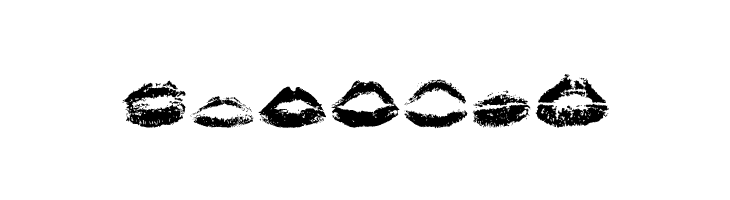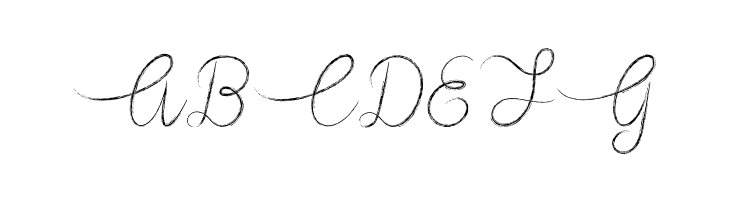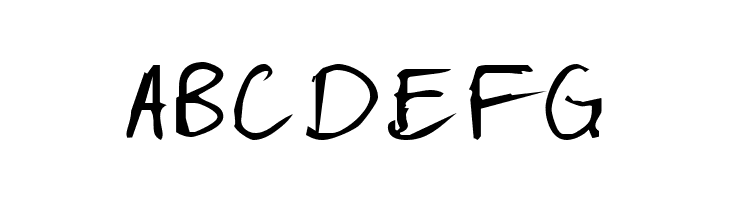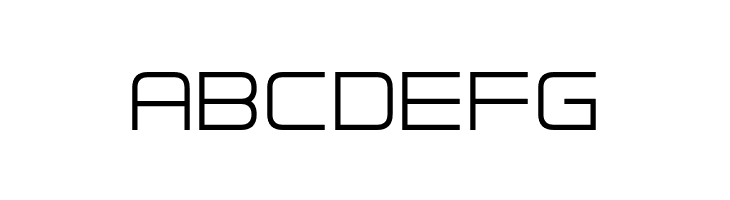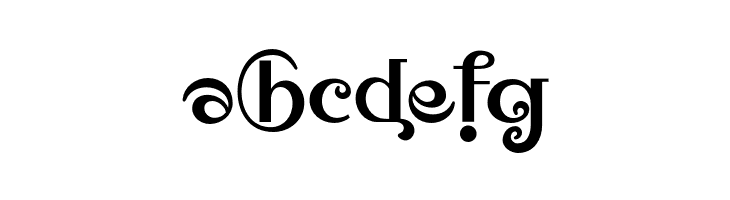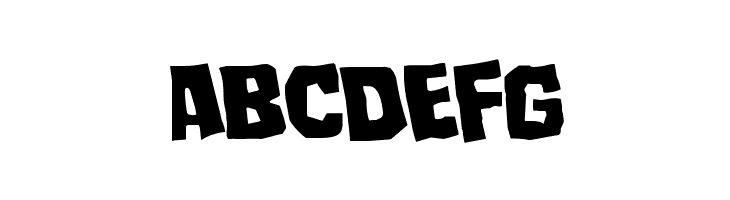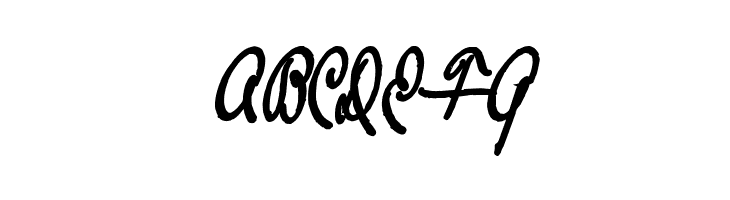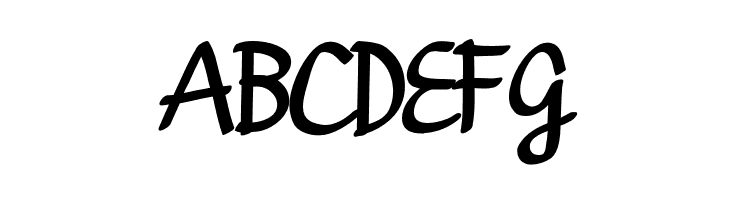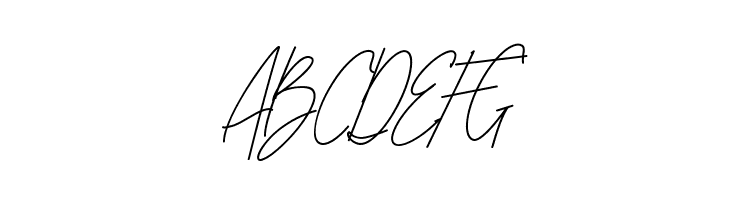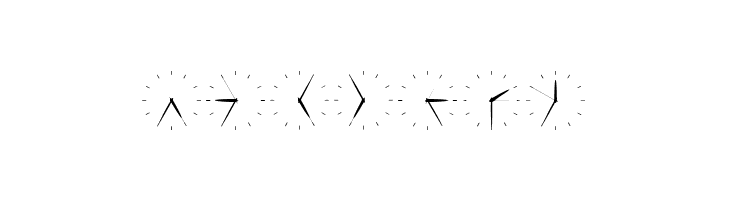
A bold, twisted, and playful font with a hand-drawn, energetic style.
A bold, expressive script font with flowing, cursive letterforms.
A playful, handwritten font with fluid and dynamic strokes.
A dynamic and expressive script font with elongated, flowing letterforms and high contrast.
An abstract, geometric font with a futuristic and artistic design.
A bold, decorative font with high contrast and intricate details.
A dynamic, brush-style font with expressive strokes and artistic flair.
A whimsical, hand-drawn font with playful and artistic characters.
A bold, brush-style font with dynamic, hand-painted strokes.
A minimalist, geometric font with clean lines and a modern aesthetic.
A pictorial, hand-drawn font inspired by prehistoric cave paintings.
A bold, hand-painted style font with dynamic, textured strokes.
A modern, minimalist font with geometric shapes and uniform stroke width.
A festive set of bold Christmas-themed icons for decorative use.
A decorative font featuring Christmas-themed icons and symbols.
A bold, futuristic font with angular lines and a dynamic slant.
A futuristic, hollow font with bold, geometric outlines.
A bold, expressive font with an artistic, hand-painted style and ink splatter effects.
A bold, geometric font with abstract shapes and sharp edges.
An ornate script font with elaborate swashes and flourishes.
A futuristic, geometric font with hollow spaces and a modern digital aesthetic.
A festive, decorative font with Christmas-themed illustrations and a playful script style.
An elegant humanistic cursive font with dynamic serifs and flowing letterforms.
A geometric, abstract font with a futuristic and mechanical style.
A whimsical and decorative font with playful curls and swirls.
A festive font with characters inside Christmas light bulb shapes.
An artistic and decorative font with unique embellishments and a modern, exotic style.
A decorative series of lip prints representing characters and symbols.
A playful and artistic font made from lip print designs, perfect for creative projects.
An elegant, flowing script font with delicate, connected strokes.
A playful and quirky font with twisted, irregular characters.
A playful and artistic handwritten font with dynamic strokes and decorative elements.
A modern decorative font with bold, looped serifs and artistic detailing.